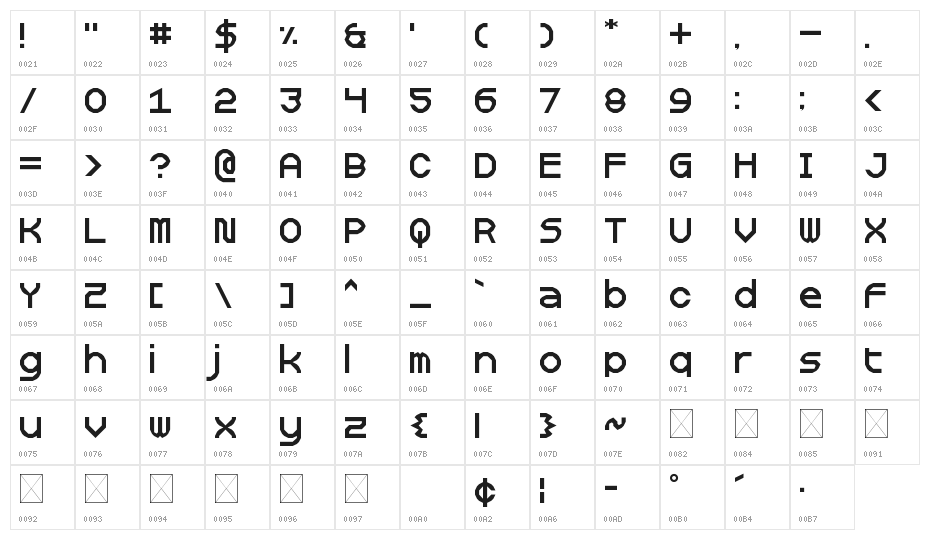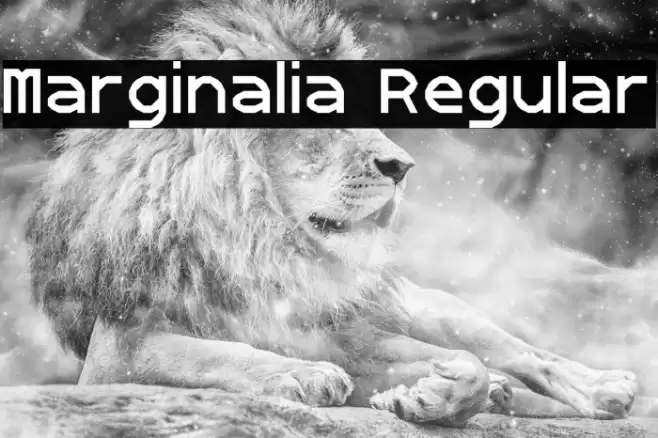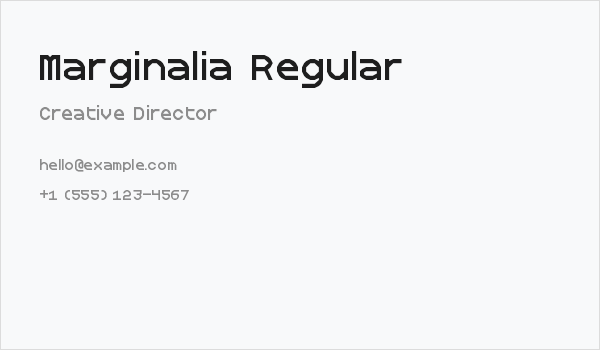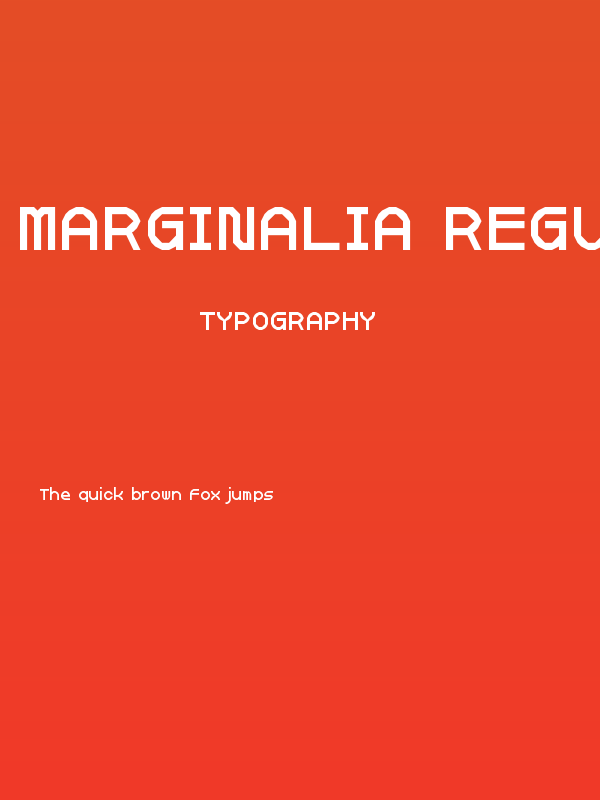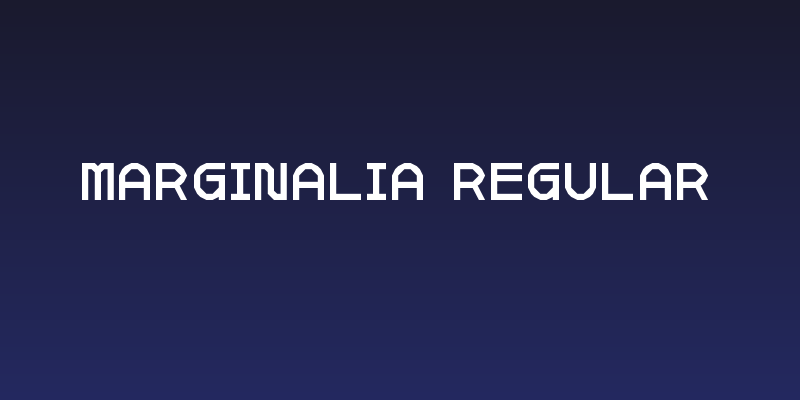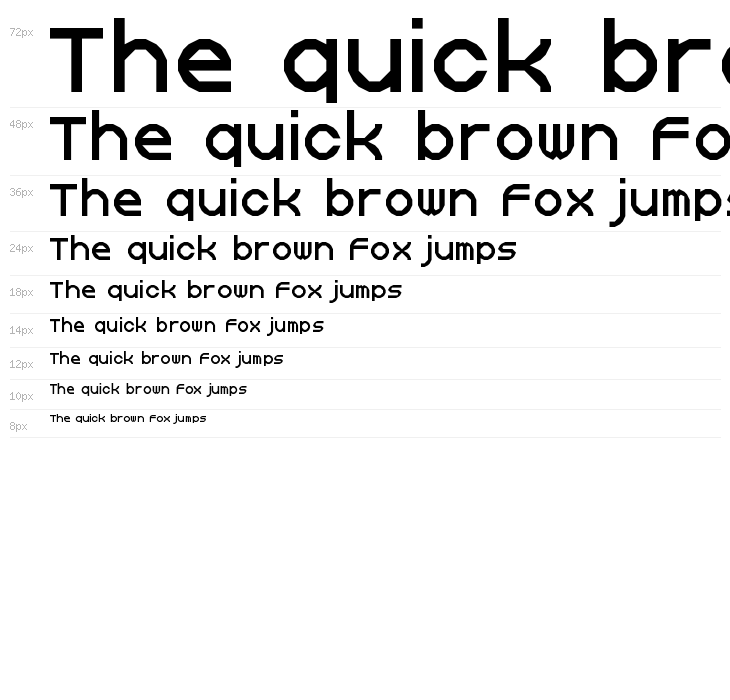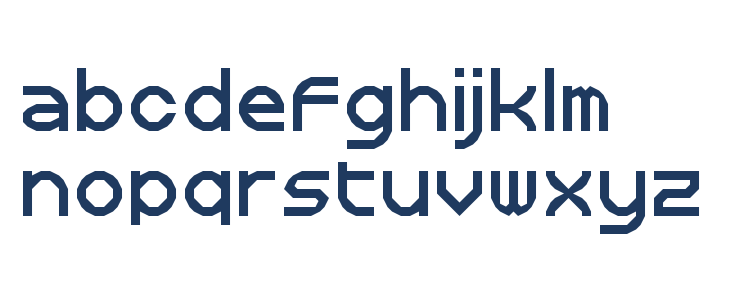
Marginalia Regular Font
Marginalia Regular Description
This font features a geometric and structured design, characterized by its bold and angular letterforms. The uppercase letters are uniform in height, with a distinct blocky appearance that gives a modern and technical feel. The lowercase letters maintain the geometric style, with consistent stroke widths and sharp angles. The numerals are similarly styled, offering a cohesive look across all characters. Special characters are designed to match the overall aesthetic, ensuring visual harmony. This font is ideal for projects that require a futuristic or digital touch, with its clean lines and strong presence.
| Proposed Projects | Ideal for technology branding, digital interfaces, video game titles, and futuristic designs. |